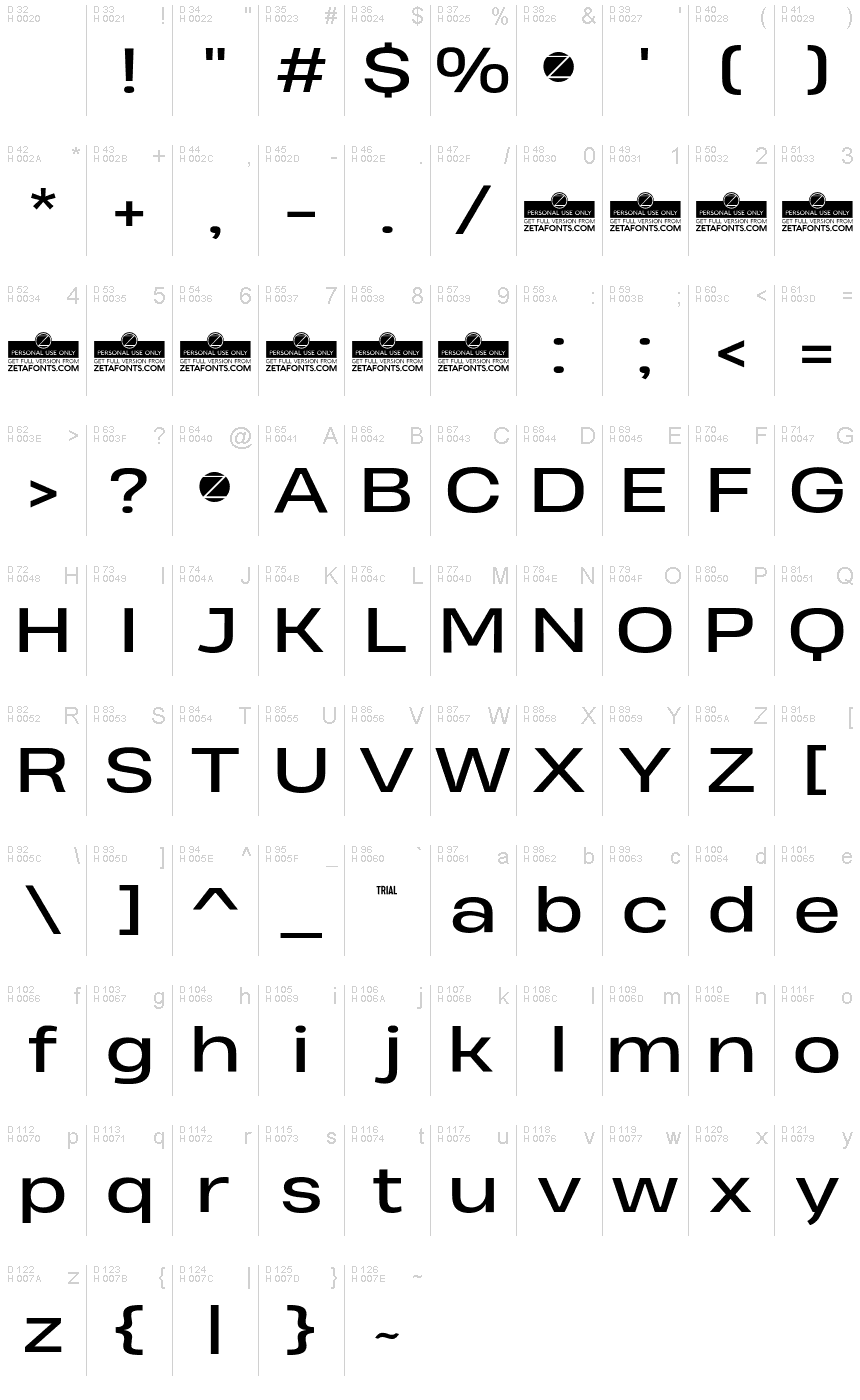
Heading Pro Wide Trial Regular
Heading Pro Wide has been added to the original condensed width family to be used for titling where style and raw energy matter more than pixel or paper economy. The wide sizes allow you to write strong headlines and play with sub-headings and short text blocks. Matching italics can provide you with versatility in text use as well as a viable display alternate for bolder weights, with a strong sport/energy feel.